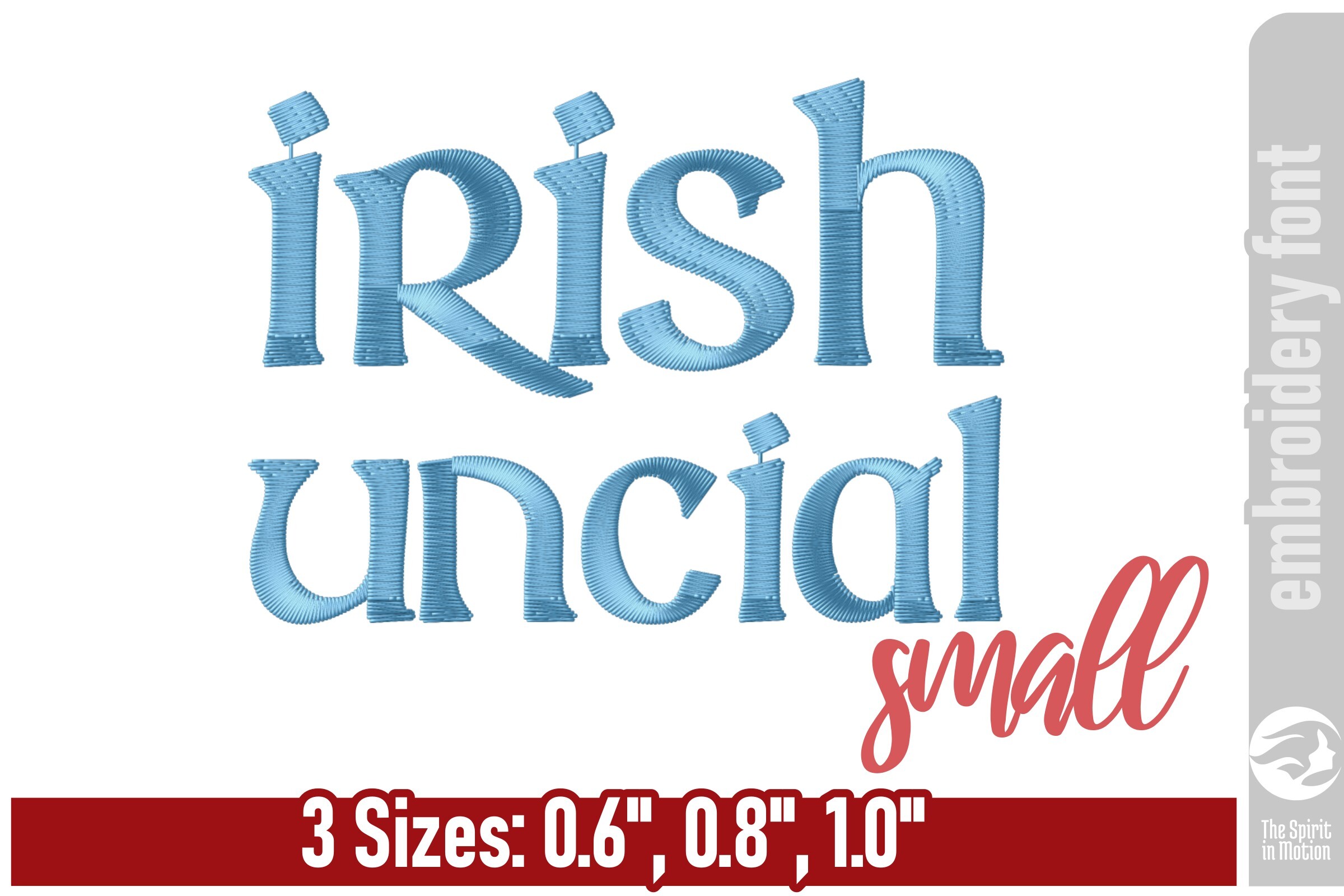
Irish Uncial Embroidery Font - Small
This Irish Uncial embroidery font is inspired by traditional Celtic manuscripts and medieval lettering. Its bold, rounded strokes give a timeless and distinguished look, making it ideal for St. Patrick’s Day, weddings, monograms, church projects, and heritage-themed designs. A perfect way to add classic Irish style to any embroidery project. The sizes and stitches information shown below is for “A” and “a” in each size. This is provided as a summary of what is available in this download file. For the full dimension details of the 156 letters in this set, click on the More Sewing Info (PDF) button on this page.